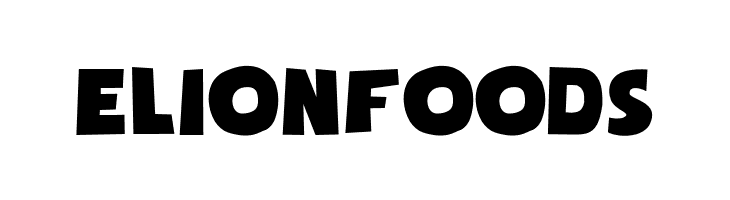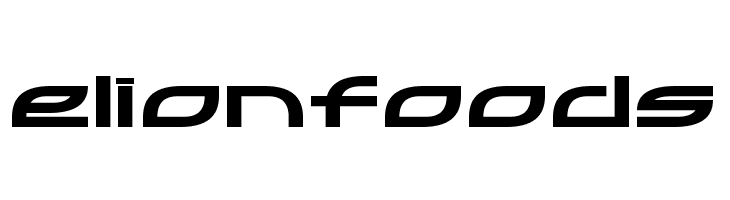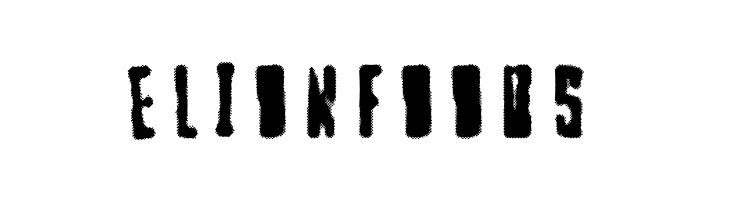
A futuristic, geometric font with sharp angles and a sleek design.
A bold, distressed font with an eroded, alien-like appearance.
A bold, handwritten font with a dynamic, italic style.
A bold, handwritten-style font with a dynamic and energetic appearance.